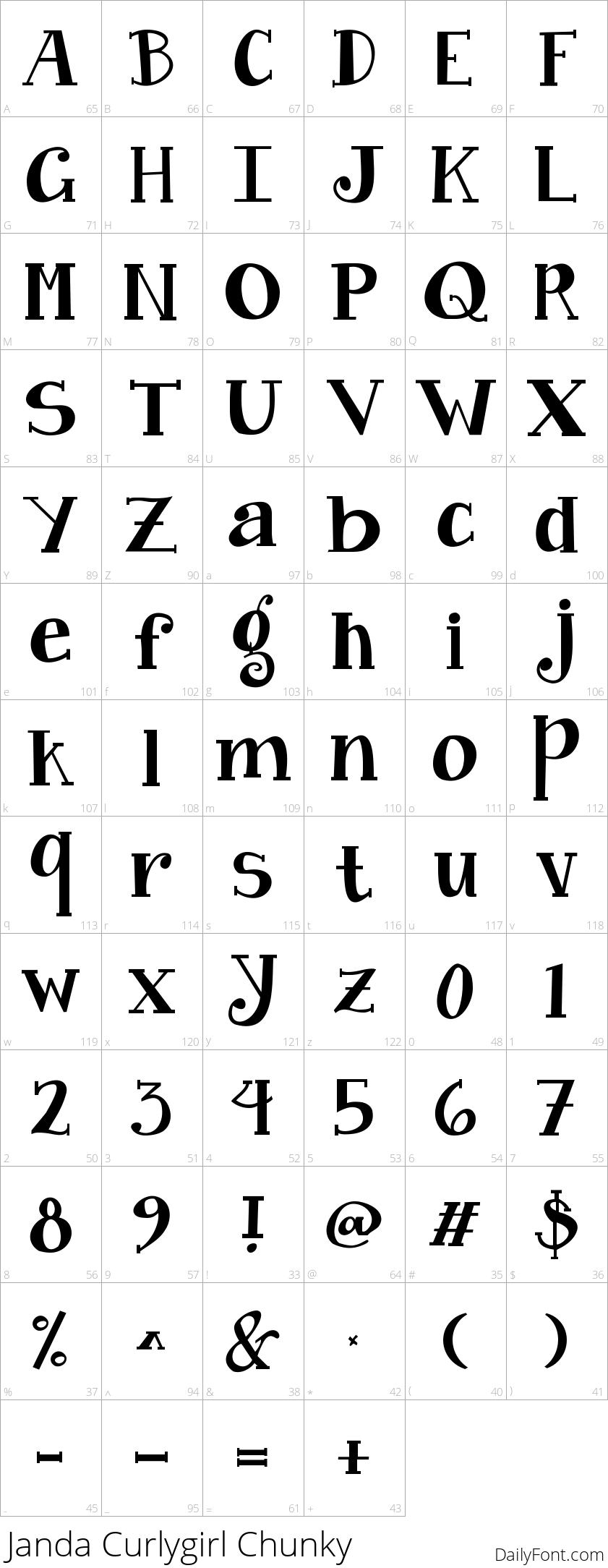
Janda Curlygirl
Curvy and charming, Janda Curlygirl is a one-of-a-kind hand-drawn font that exudes whimsy and playfulness. With three distinct styles to choose from, this font family offers a range of creative possibilities for designers seeking a unique look.
Characterized by its rounded lines, flowing curves, and subtle irregularities, Janda Curlygirl has a soft, organic feel that's reminiscent of handwritten script. Perfect for adding a touch of personality to your designs, this font is well-suited for use in titles, headings, and short blocks of text where you want to convey a sense of approachability and charm.
Whether you're creating a children's book, a blog post, or a social media campaign, Janda Curlygirl's versatility and flair make it an excellent choice for designers looking to add some visual interest to their work. With its distinctive curls and flourishes, this font is sure to grab attention and leave a lasting impression on your audience.